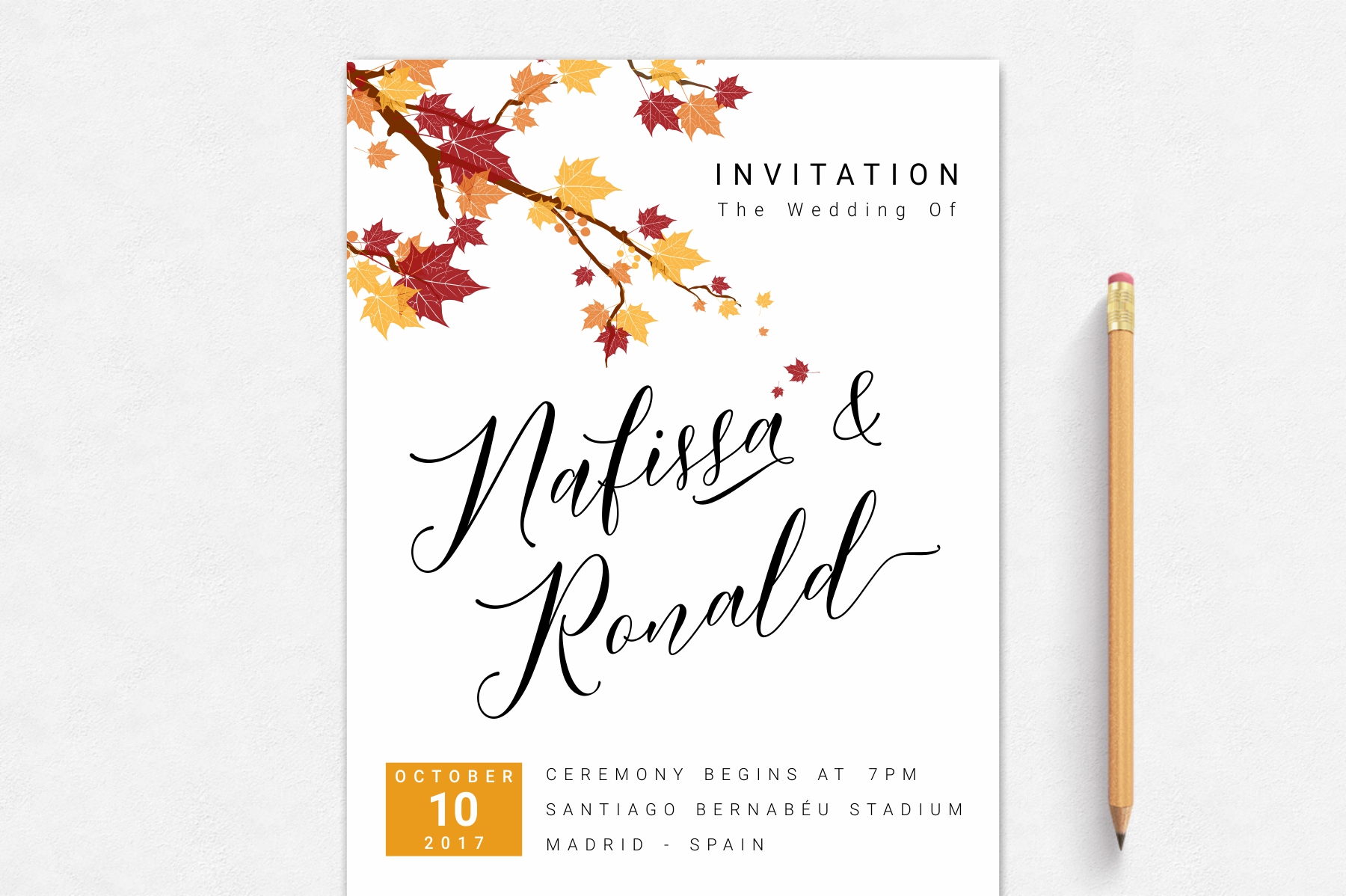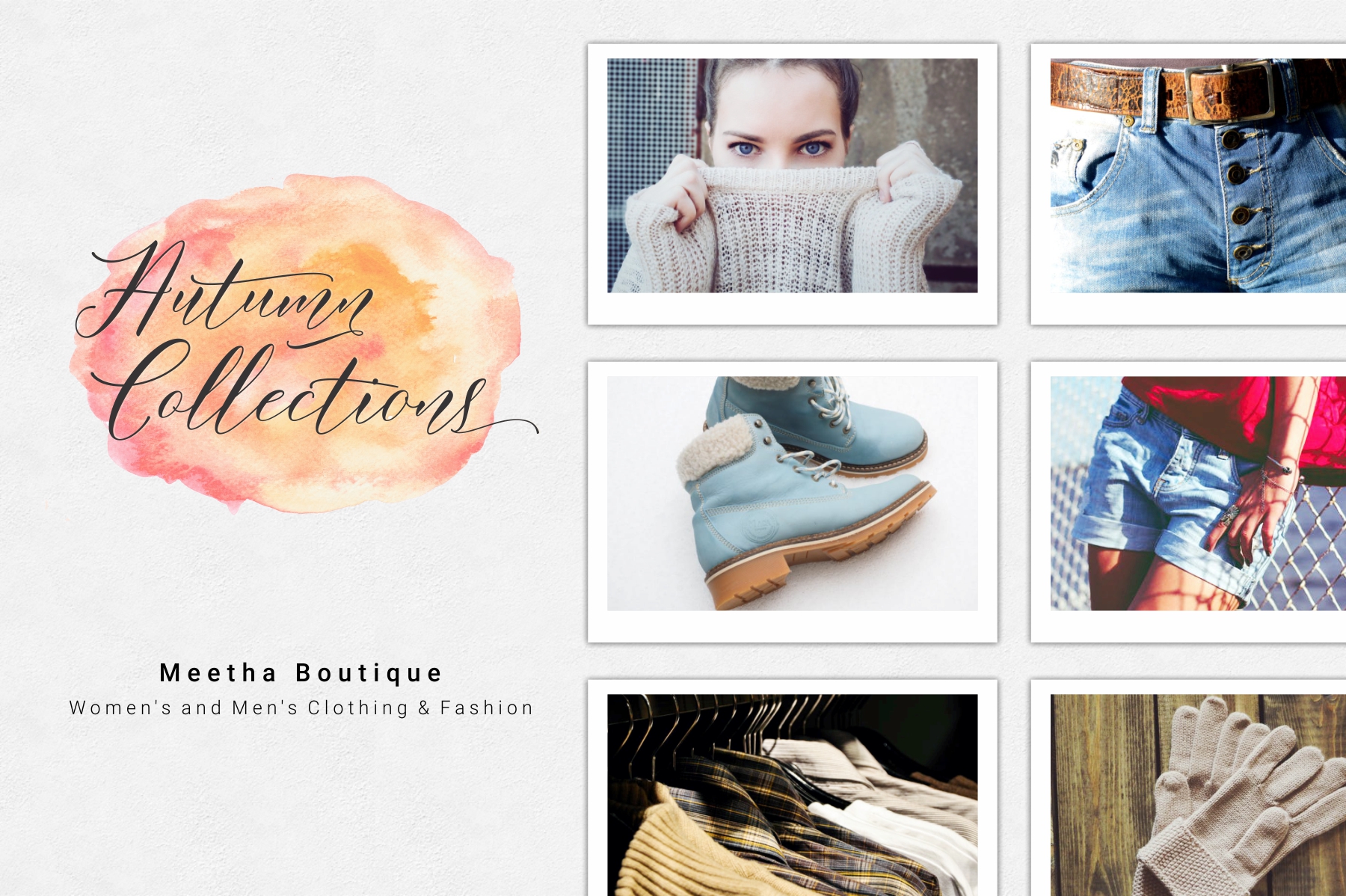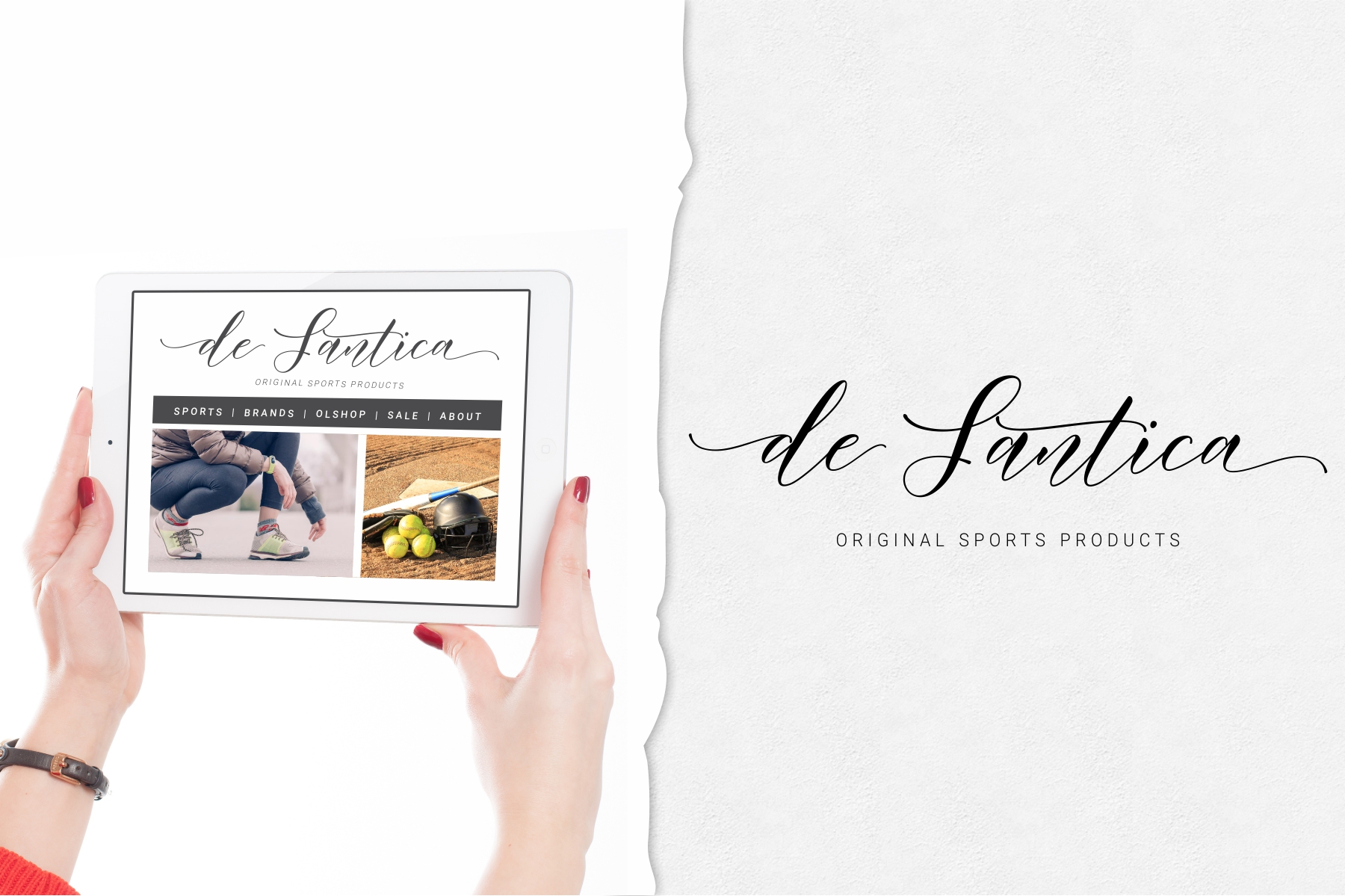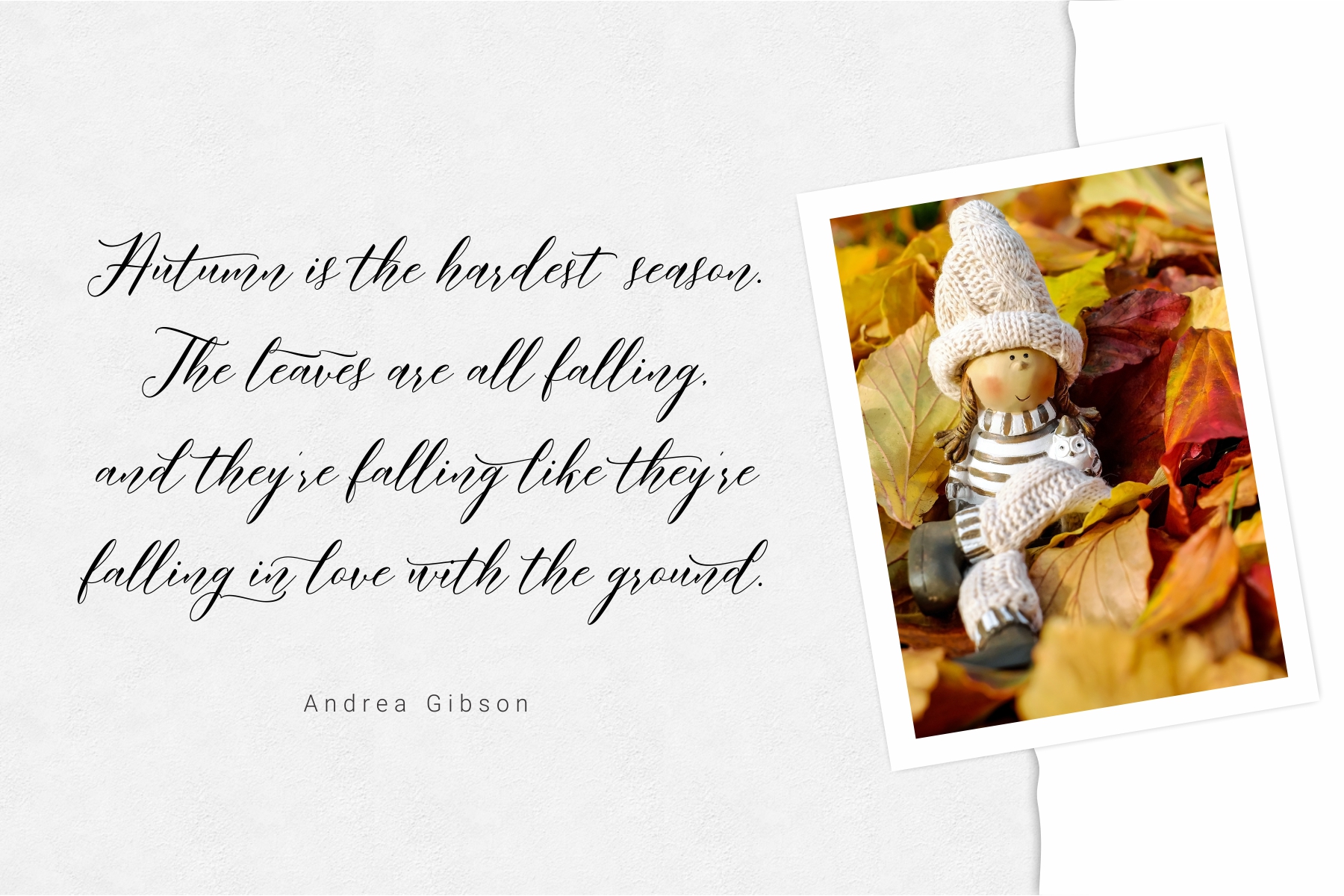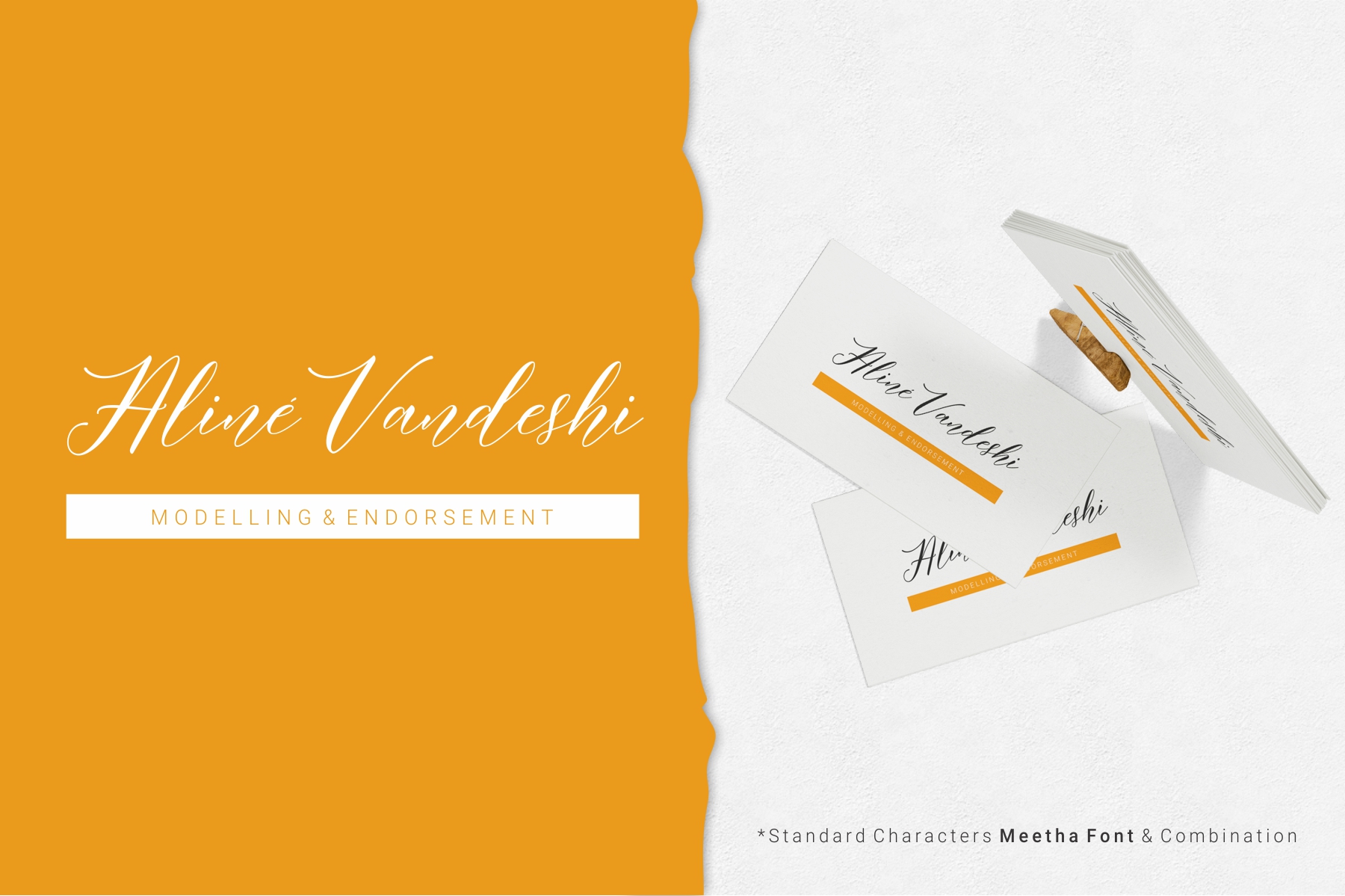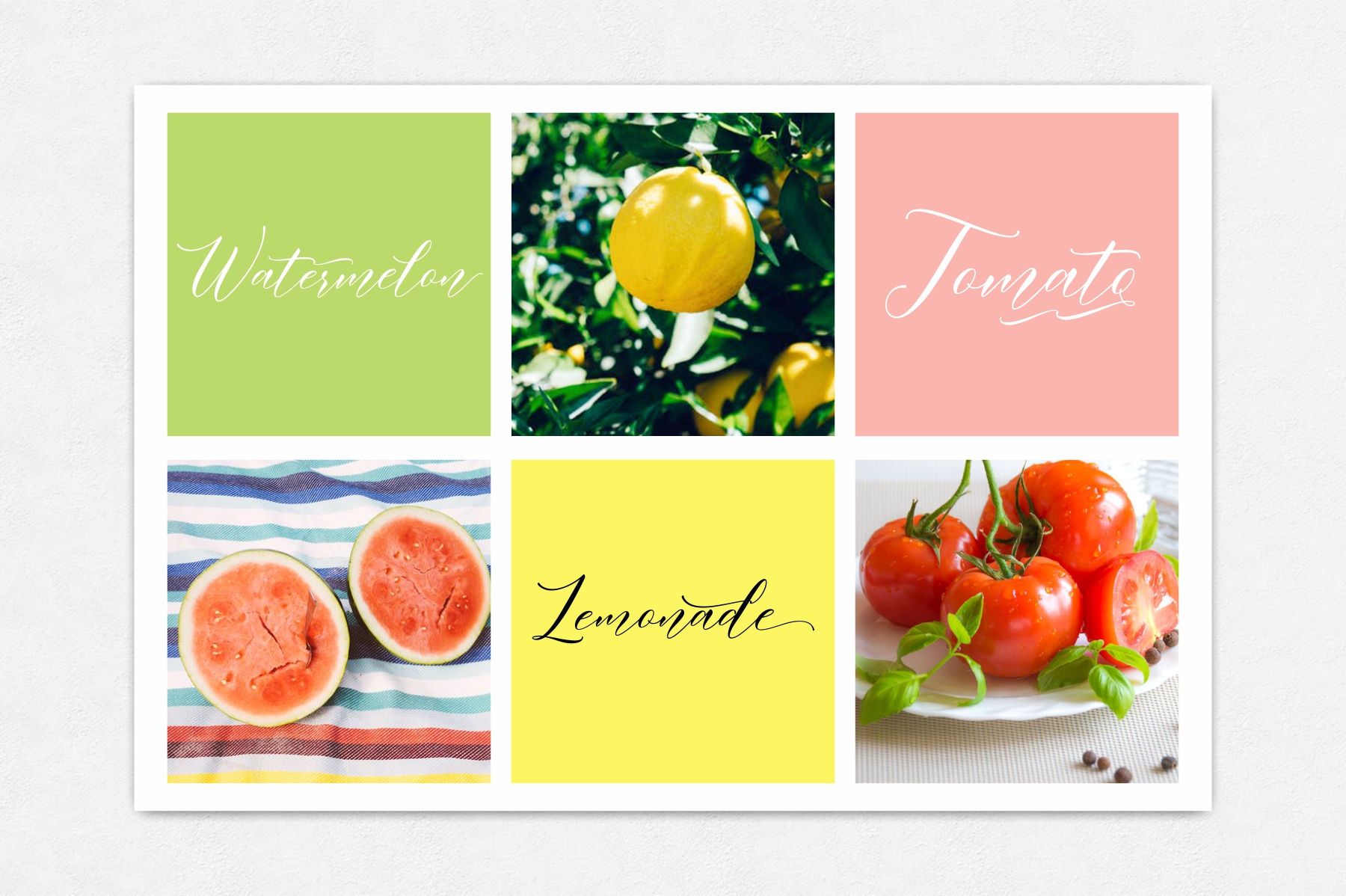
Introduction to Meetha Font
Meetha is a modern calligraphy based script in an italic and dancing style.
Made to gently glide across compositions, Meetha is a modern, sweet, stylish and firm font .